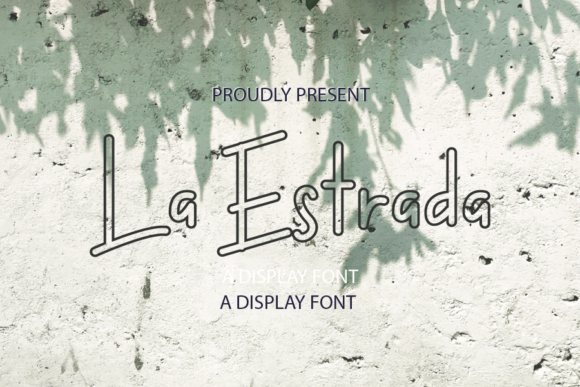
Dive into the captivating world of La Estrada, a display font that oozes charm and character. A creation of merge354, this font is not just a collection of letters; it's a gateway to expressing your boldest ideas.
With its clean, crisp lines and a touch of retro flair, La Estrada is the perfect font for grabbing attention and making a lasting impression. Its versatility knows no bounds, whether you're crafting political posters that demand notice or designing packaging that pops.
Imagine your words taking center stage, commanding attention with every stroke. La Estrada's distinct personality shines through, evoking a sense of authority and sophistication. Its ability to convey both strength and elegance makes it a standout choice for any creative project.
Unleash your inner artist and let La Estrada ignite your imagination. Its user-friendly nature makes it a breeze to work with, ensuring a seamless and enjoyable experience. Experience the transformative power of a font that empowers you to express yourself with confidence and style.
Step into the spotlight and make your mark with La Estrada. Every character carries the weight of your message, demanding attention and leaving an unforgettable impression. Let this display font be your ally in the pursuit of creative excellence.